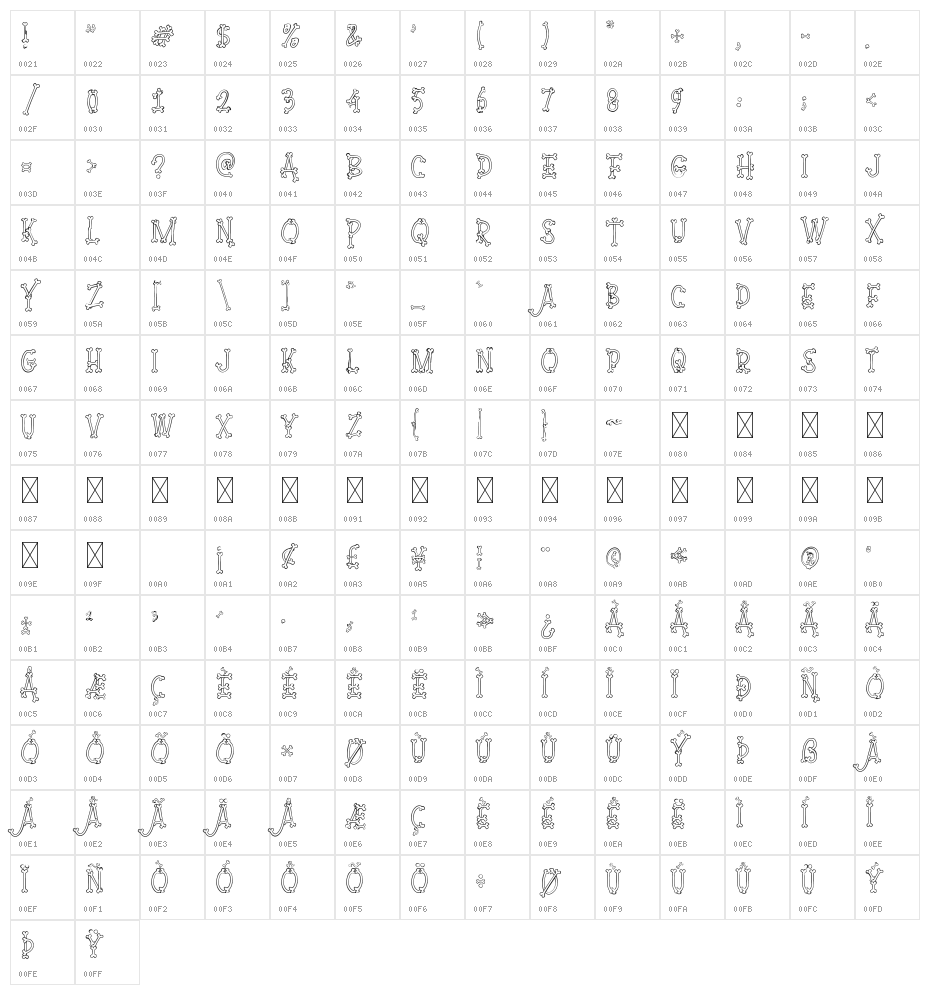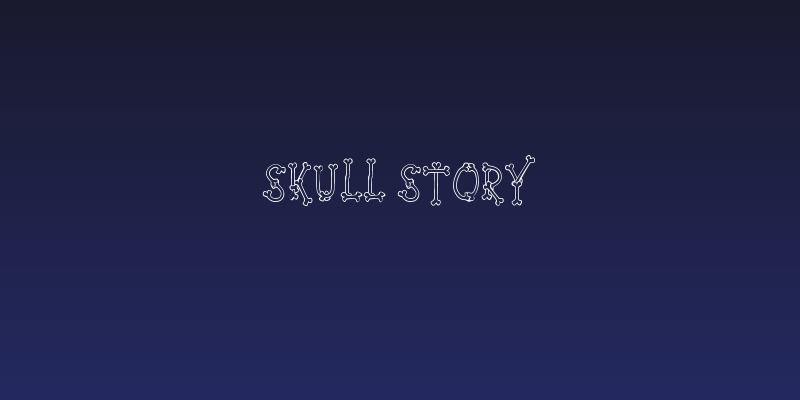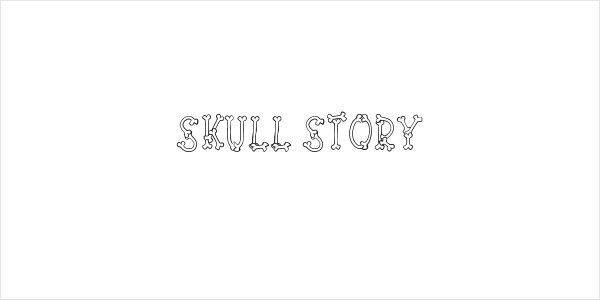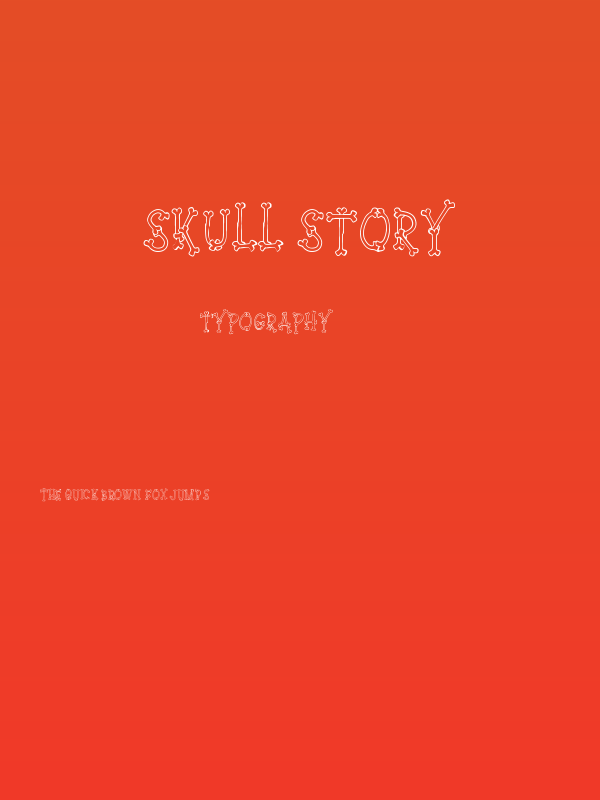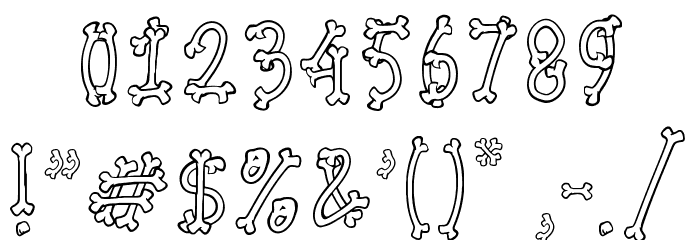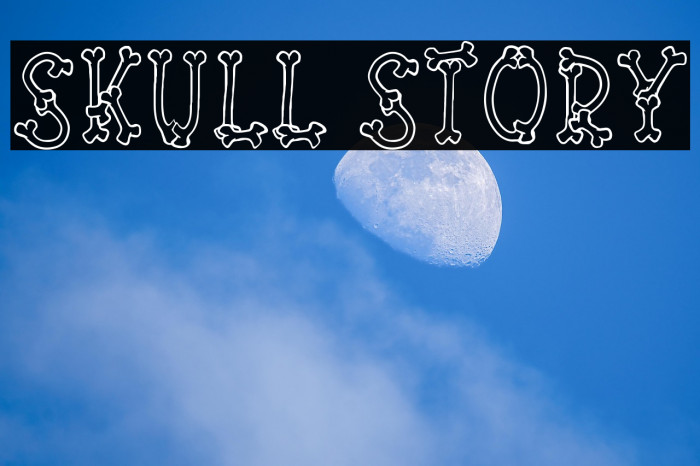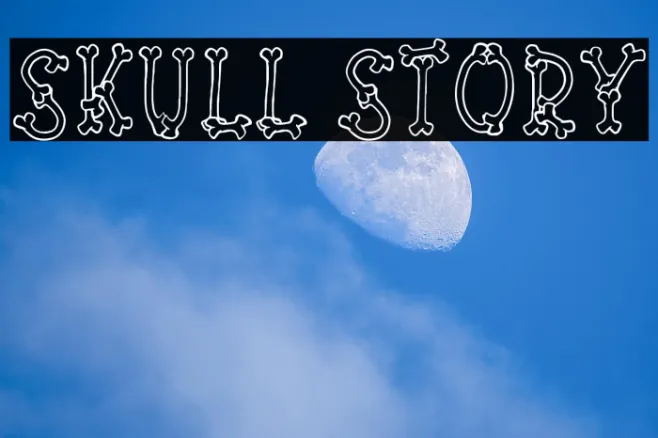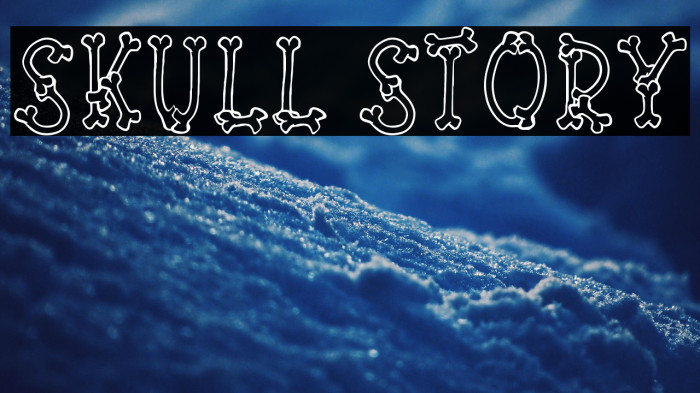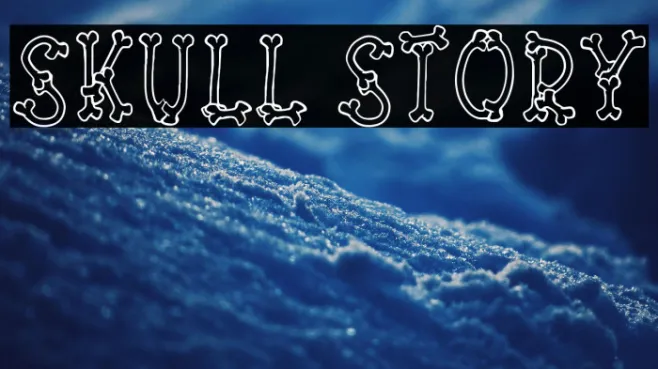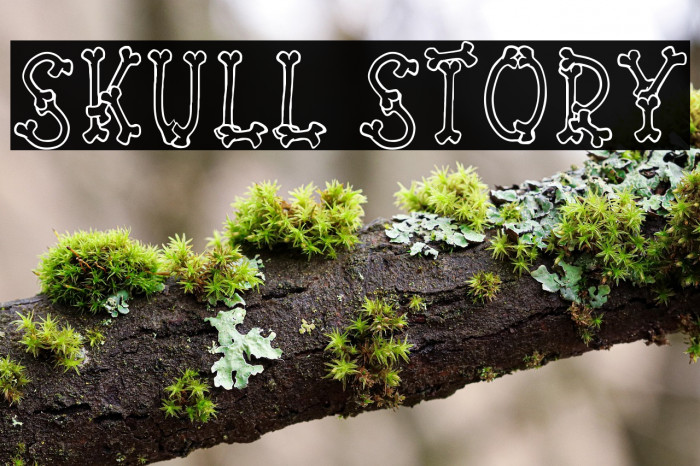
Skull Story Font
Skull Story Description
This font features a unique and playful design, with each character crafted to resemble bones. The letters are outlined with a bold black line, giving them a distinct and eye-catching appearance. The skeletal theme is consistent across uppercase and lowercase letters, as well as numbers and special characters. This font is perfect for Halloween-themed projects or any design that requires a spooky, yet fun aesthetic. The characters are evenly spaced, ensuring readability while maintaining the decorative style. The font's whimsical nature makes it suitable for creative and informal settings.
| Proposed Projects | Ideal for Halloween invitations, themed posters, children's party decorations, and creative branding. |